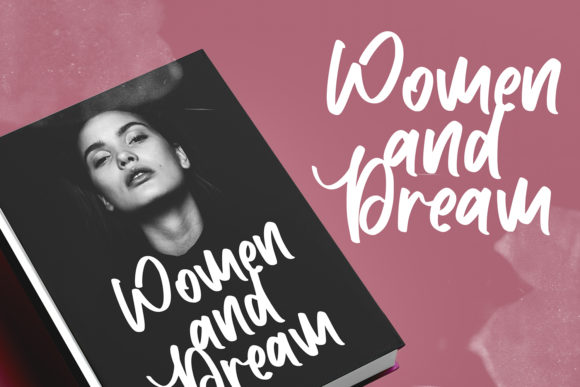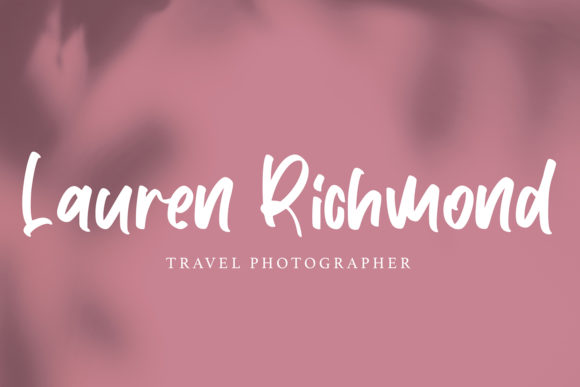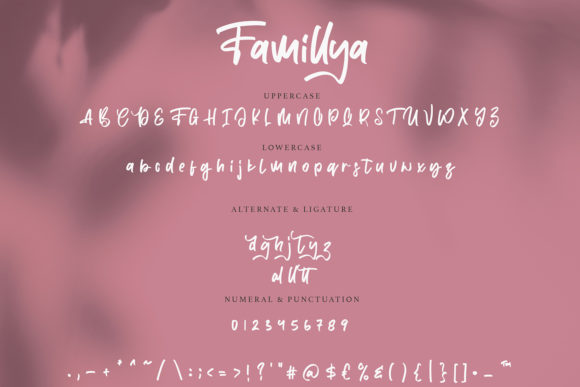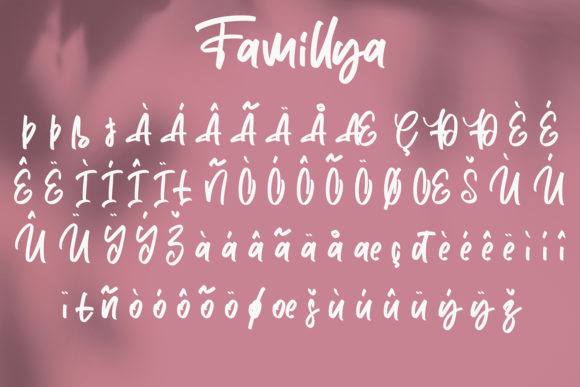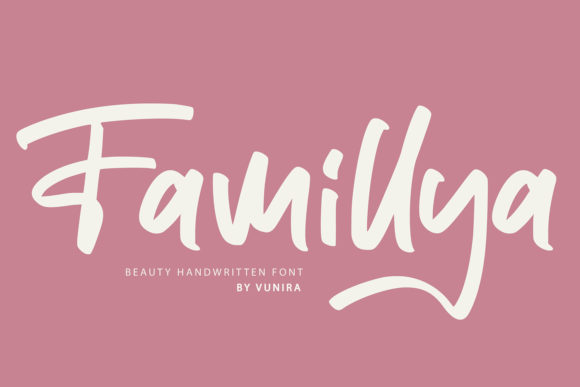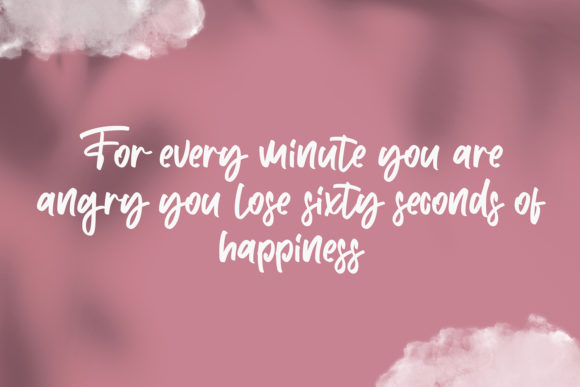
Introduction to Famillya Font
Famillya is a cute and casual handwritten font with an incredibly friendly feel.
It features gorgeous characters and ligatures that make this script incredibly versatile Whether youโre looking for fonts for Instagram or calligraphy scripts for DIY projects, Famillya will turn any creative idea into a true piece of art.
Key Features of Famillya Font